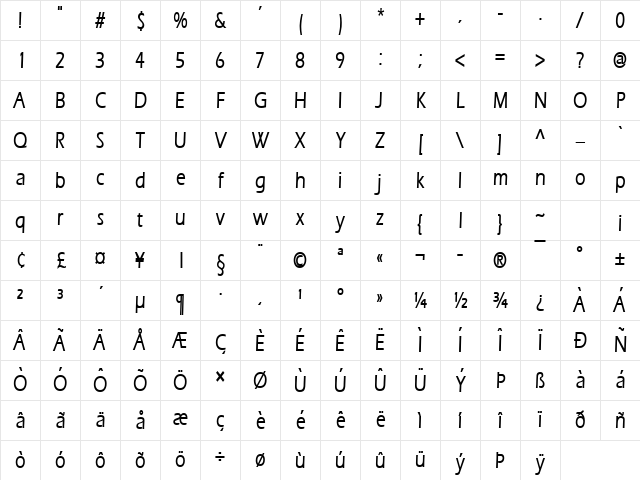
Eric Thin Bold
Eric Thin Family
Design Context for Eric Thin
Eric Thin is a composed and adaptable typeface that performs quietly and consistently across a wide range of design contexts. Its bold stroke weight gives it real presence on the page.